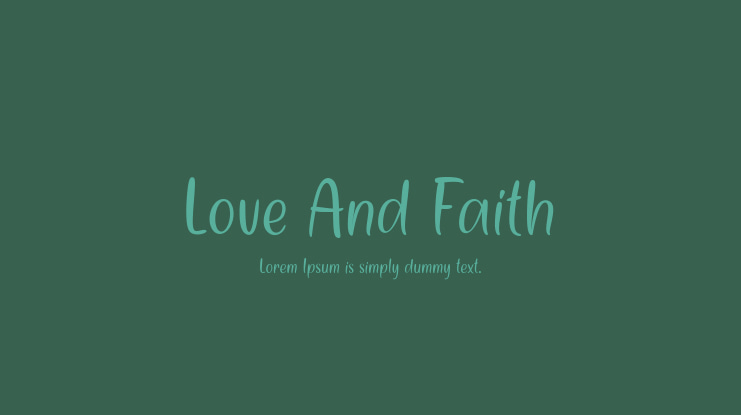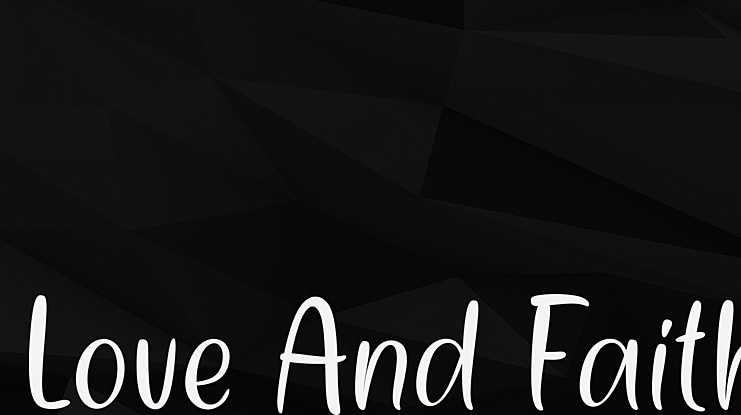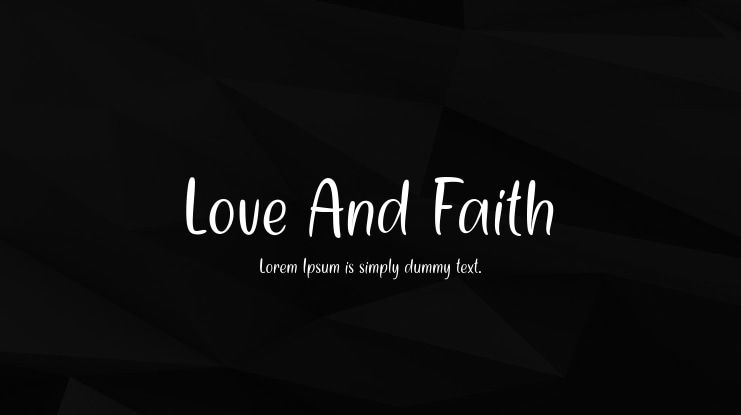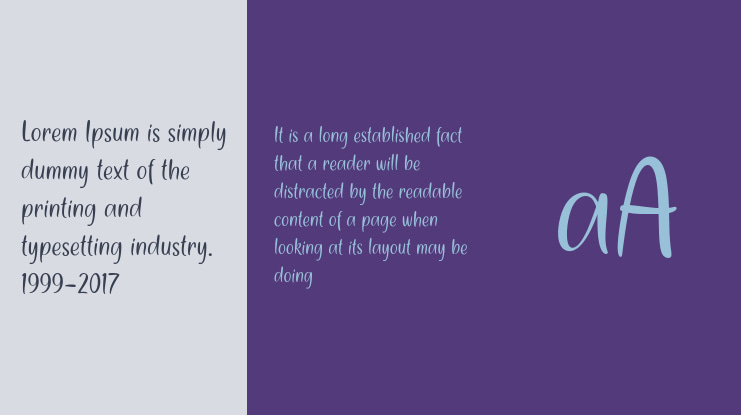
Love And Faith Font
Love and Faith is a simple, natural and flowing handwritten font. Delicate and sweet, this font will be ideal for writing wedding invitations, cards or any other design that may need a romantic, personalized touch!